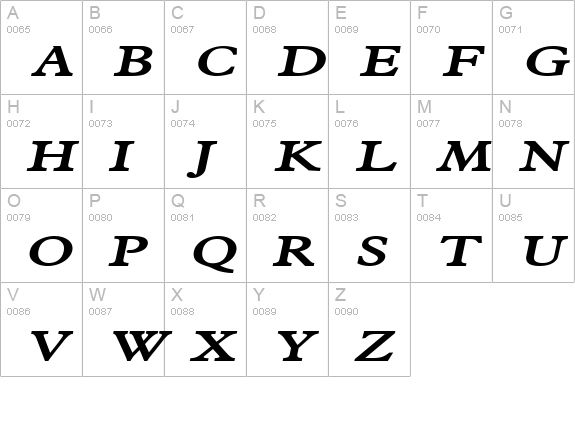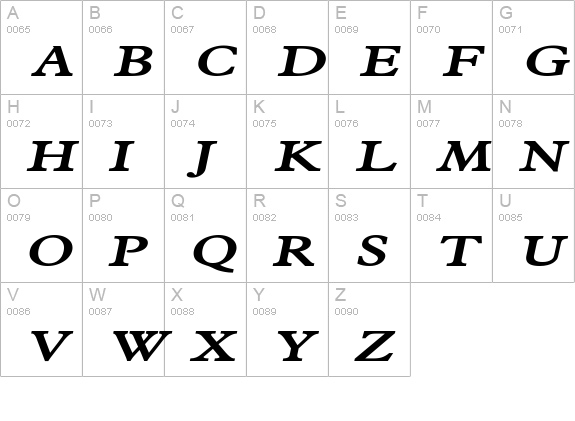
Nadine BoldItalic Font Details
The Nadine BoldItalic font is a stunning and elegant typeface that exudes sophistication and style. Its bold and italicized design makes it perfect for adding a touch of luxury to any project. The sleek curves and sharp angles of this font create a unique and eye-catching look that is sure to make a statement. What sets the Nadine BoldItalic font apart is not only its striking appearance but also its versatility. Whether you are designing a logo, creating a poster, or crafting a website, this font will add a touch of elegance and class to your work. Best of all, the Nadine BoldItalic font is available for free download at FontsMarket.com. This means that you can easily access this gorgeous font and use it in your projects without any cost. Don't miss out on the opportunity to elevate your designs with the Nadine BoldItalic font today!